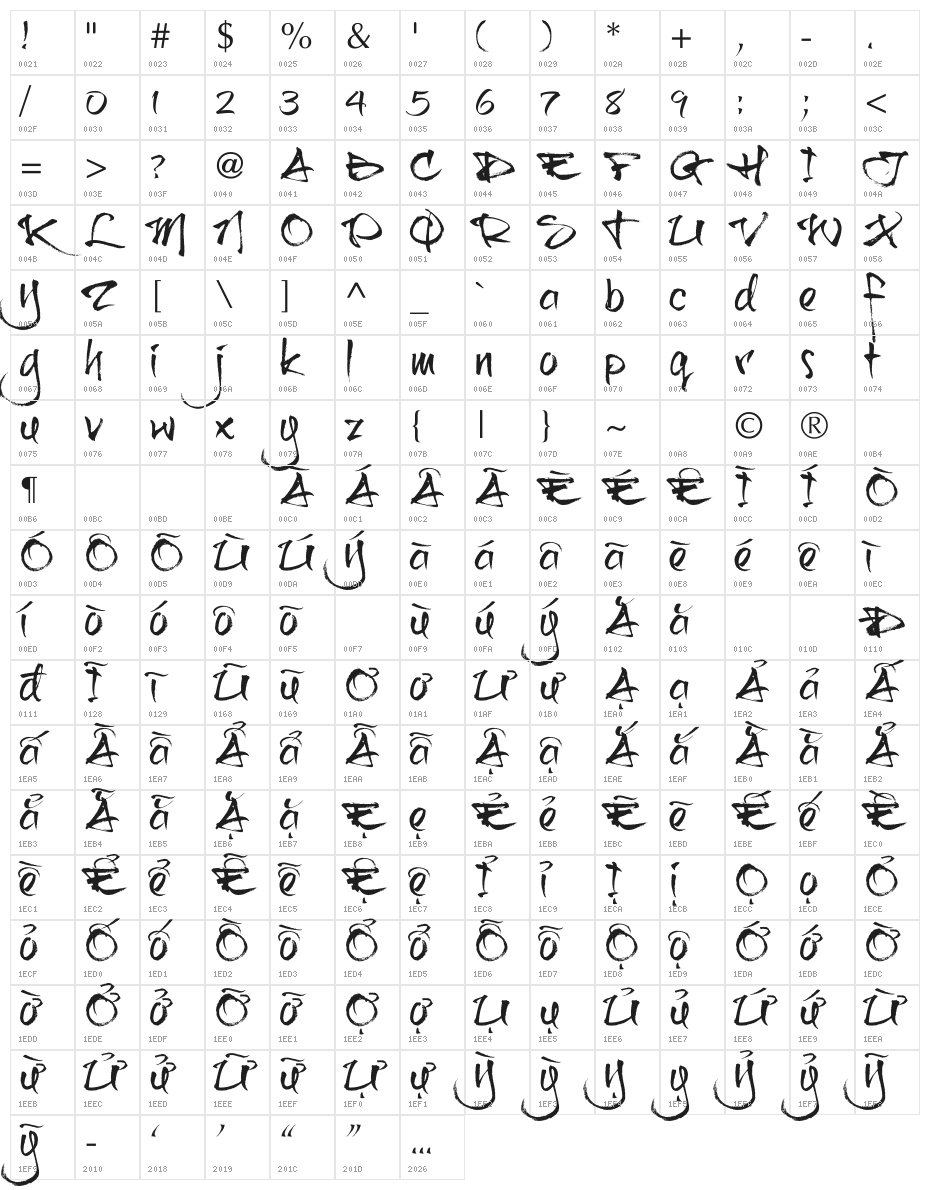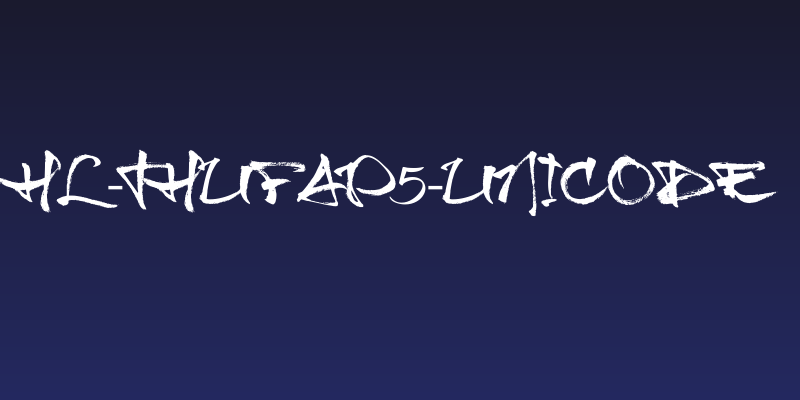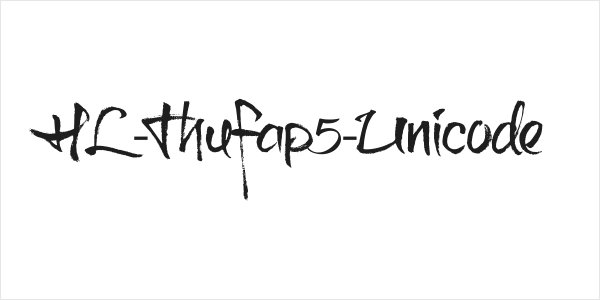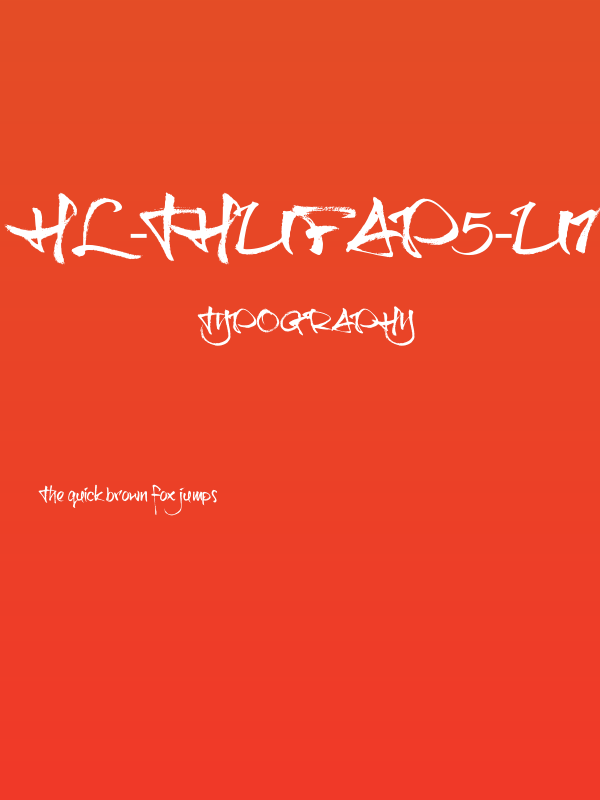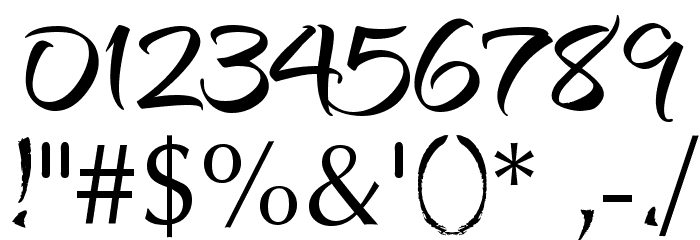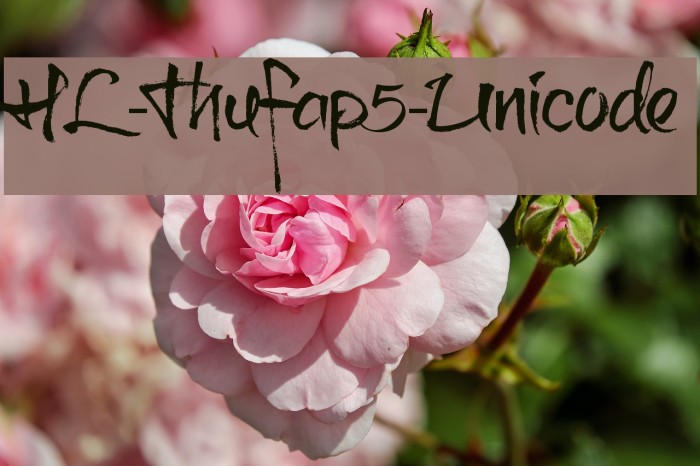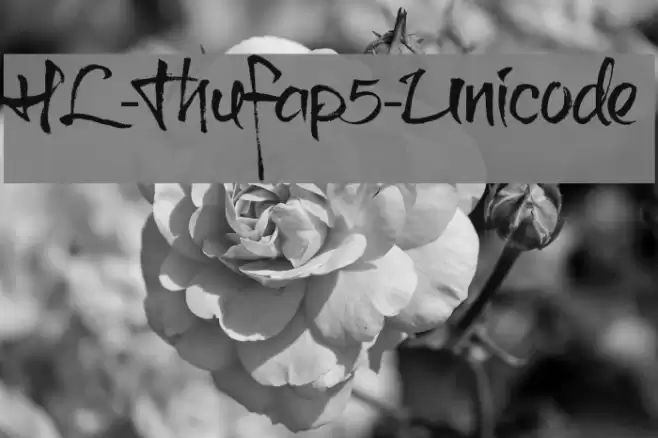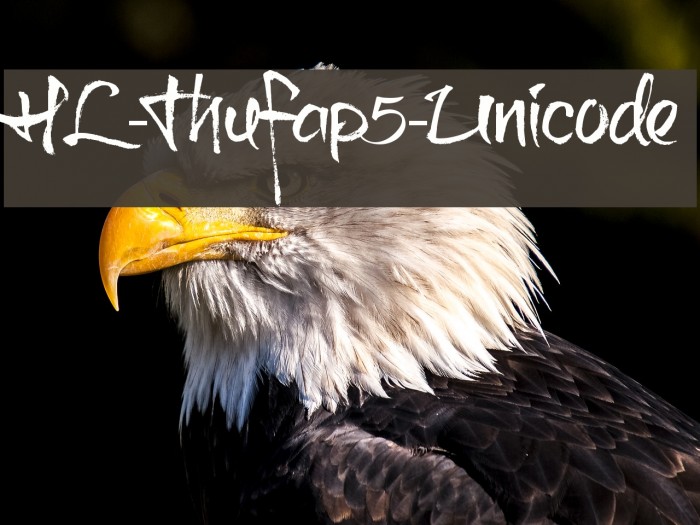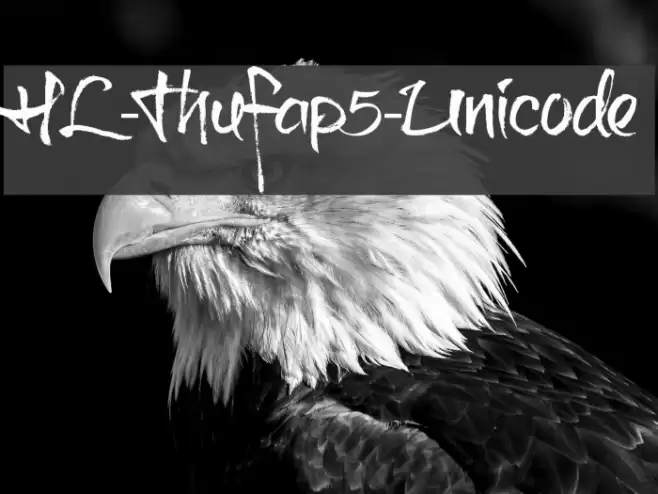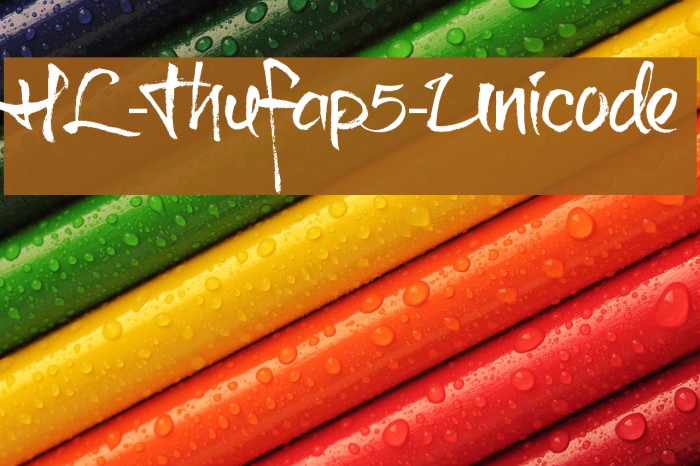
HL-Thufap5-Unicode Font
HL-Thufap5-Unicode Description
This font exhibits a bold and expressive style with a brush-like texture, giving it a dynamic and energetic appearance. The strokes are irregular and vary in thickness, creating a sense of movement and spontaneity. The uppercase and lowercase letters maintain a consistent artistic flair, while the numerals and special characters complement the overall aesthetic. The font's unique character is enhanced by its high contrast and distinctive, hand-drawn quality, making it stand out in any design project.
| Proposed Projects | Ideal for artistic posters, album covers, branding for creative industries, and any project requiring a bold, expressive touch. |